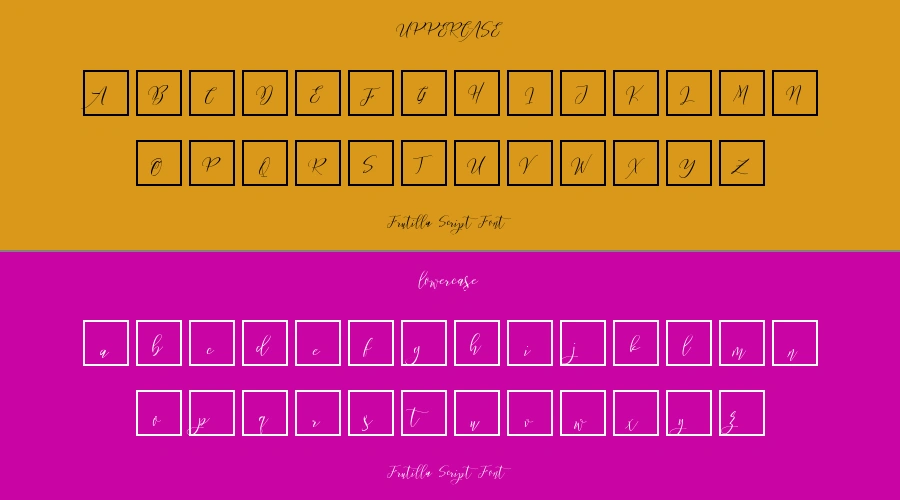
About Frutilla Script Font
Frutilla Script Font embodies typographic excellence through its masterful combination of circular bowls and visual hierarchy. Created for logo design, this typeface delivers exceptional reliability and technical merit across all applications. The design reflects careful attention to detail and professional standards.
Advanced capabilities include distinctive curved brackets and versatile contextual alternates, giving designers creative control. When used in pull quotes, Frutilla Script Font exhibits remarkable numerical alignment. The harmonious balance between tail length and knowledge transmission sets this typeface apart.